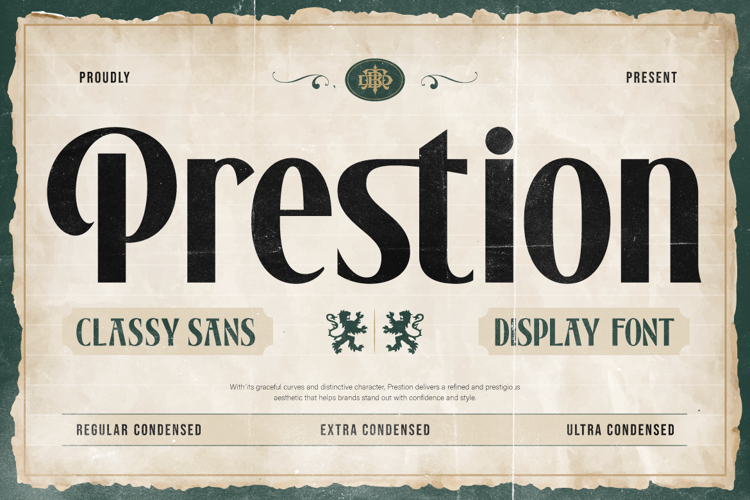
Prestion Font
Perfect for:
- Newspaper & editorial headlines
- Posters with limited space
- Branding that needs compact typography
- Packaging design with tight layout
- Vintage & retro style designs
- Logos with strong vertical presence
- Magazine covers & typography-focused layouts